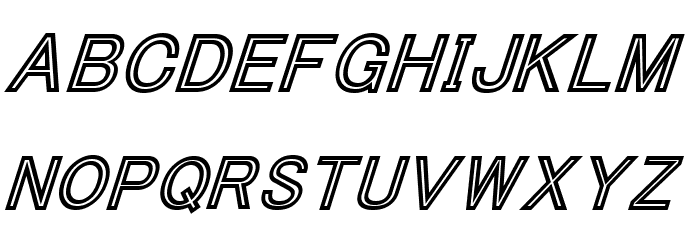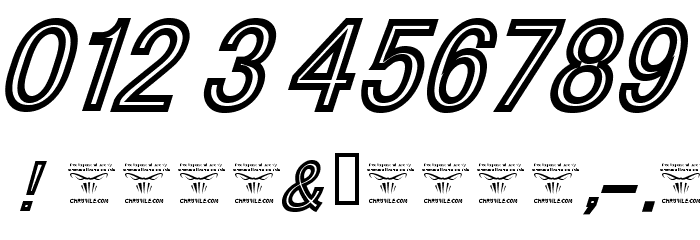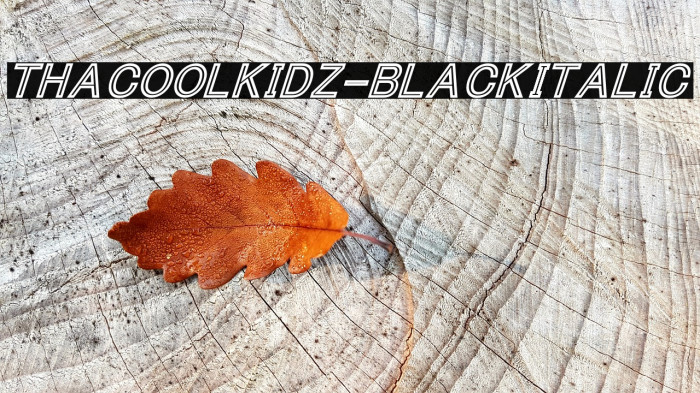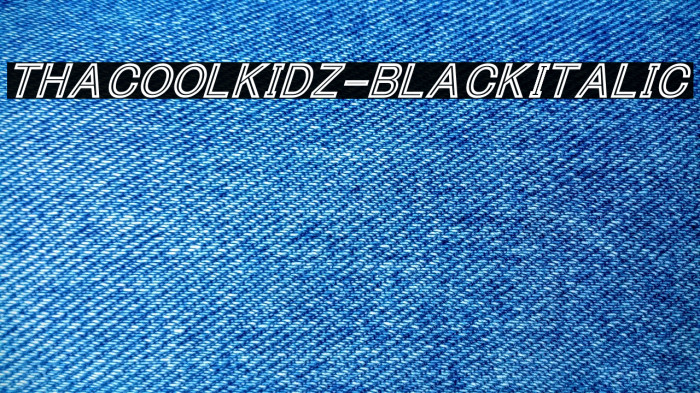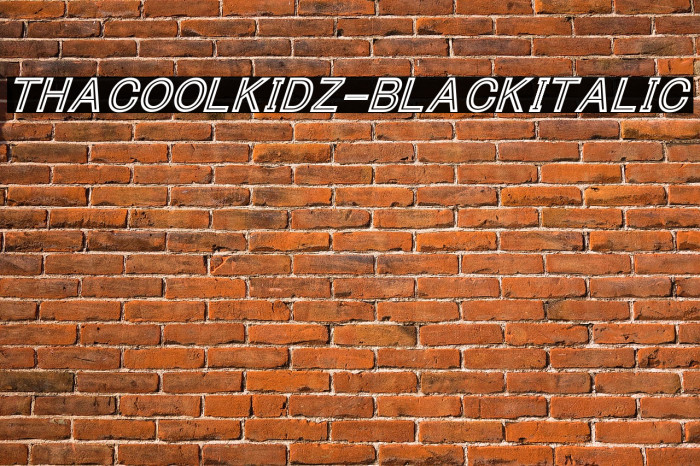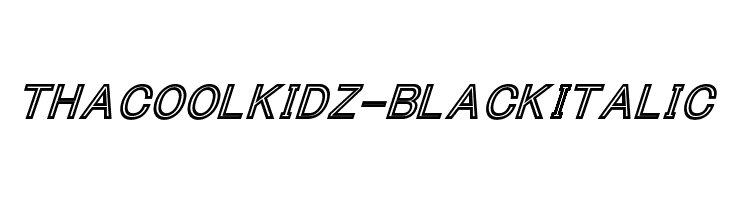
ThaCoolKidz-BlackItalic Font
This font features a bold and italicized style with a modern, edgy appearance. The characters are outlined with a thick black stroke, giving them a strong presence. The uppercase and lowercase letters maintain a consistent slant, enhancing the italic effect. The numerals and special characters follow the same design, ensuring uniformity across all glyphs. The font's boldness and italicization make it suitable for attention-grabbing headlines and titles. Its contemporary style is ideal for projects that require a dynamic and youthful vibe.
A bold, italicized font with a modern and edgy style.
- Proposed Projects: Ideal for branding, posters, and headlines that need a bold, modern look.